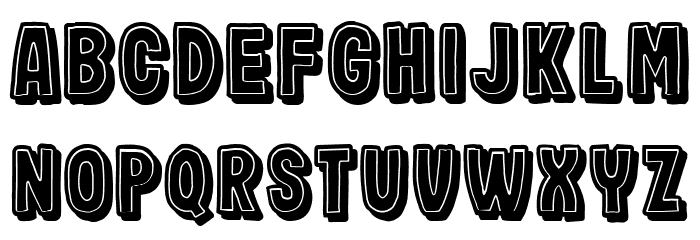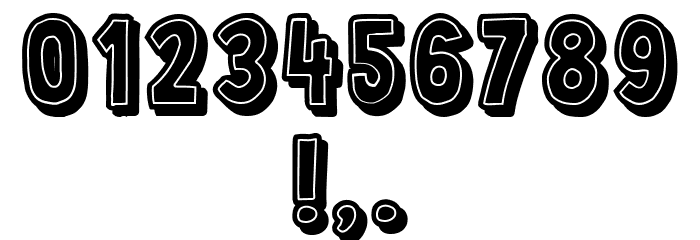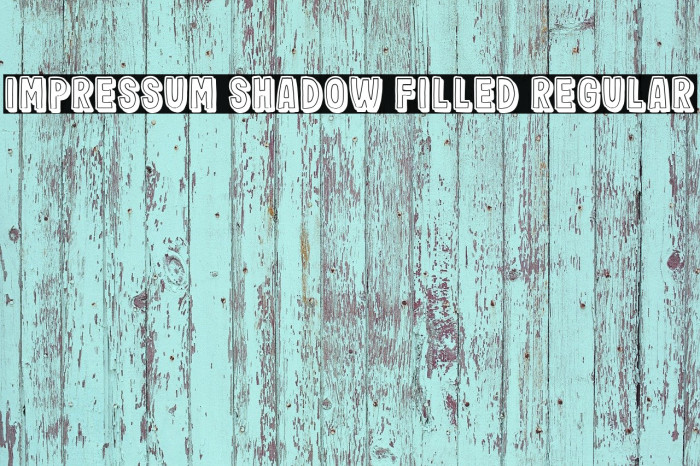
Impressum Shadow Filled Regular Font
This font features bold, uppercase and lowercase letters with a distinct shadow effect that gives each character a three-dimensional appearance. The characters are filled, creating a strong visual impact. The style is playful yet bold, making it suitable for attention-grabbing designs. The numbers and special characters maintain the same shadowed, filled style, ensuring consistency across all elements. The font's design is both modern and decorative, with a touch of retro flair due to its shadowed effect.
A bold, shadowed font with filled characters for a striking, three-dimensional look.
- Font: Impressum Shadow Filled Regular
- Proposed Projects: Ideal for posters, headlines, logos, and any design requiring a bold, eye-catching typeface.
- Overall Style: Modern, Decorative